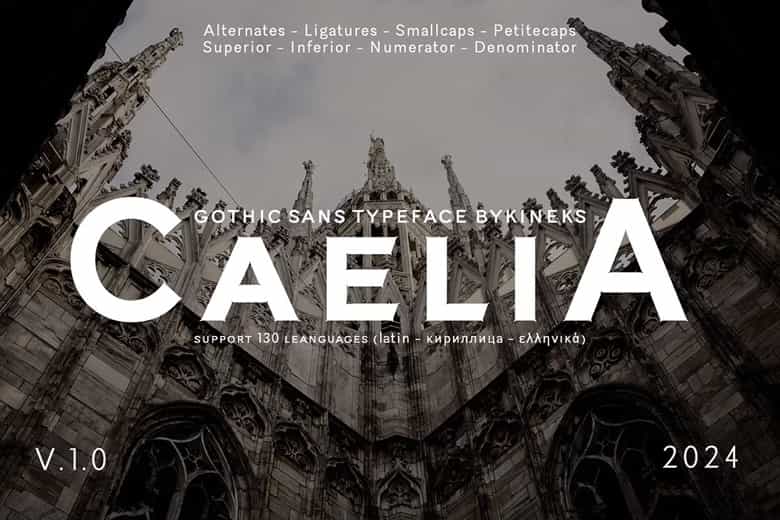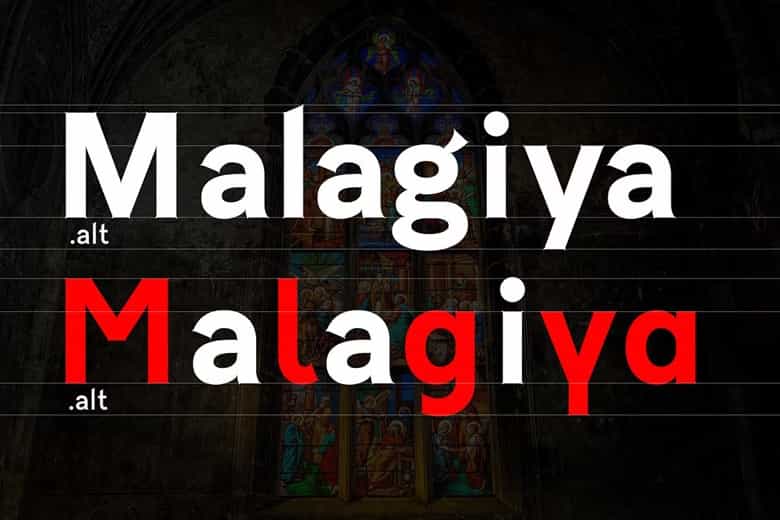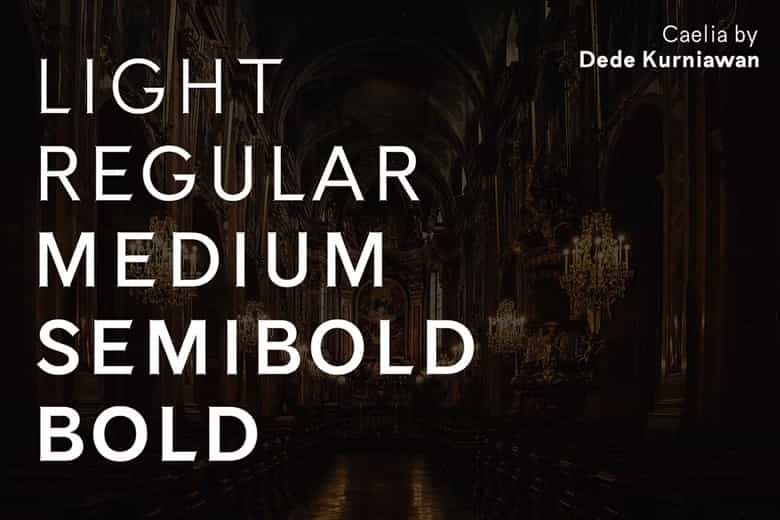
Caelia is a modern graceful gothic sans font by Kineks crafted from Gothic architecture and aiming to give the right measure of both masculinity and refinement.. Caelia is modern and clean typeface with a sans-serif motif that is both nimble and versatile, easily adaptable for usage in branding, posters, editorial, and web.